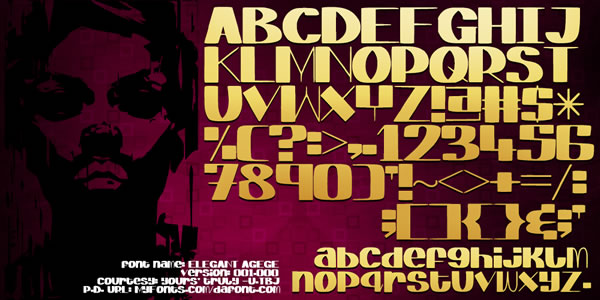
Elegant Agege Font
About Elegant Agege Font
The Elegant Agege font is a highly versatile typeface that can be utilized across a wide range of design purposes. Its elegant and sophisticated design makes it suitable for various applications, allowing designers to add a touch of class and refinement to their projects. Whether it’s for personal or professional use, this font offers a range of possibilities.
One of the key strengths of the Elegant Agege font lies in its ability to enhance the visual appeal of products. For example, when applied to mugs, the font can create visually striking designs that are both stylish and eye-catching. Its unique letterforms and graceful strokes add a level of elegance and sophistication to the merchandise.
In addition, the Elegant Agege font is an excellent choice for creating impactful headings and titles. Whether it’s for websites, magazines, or presentations, using this font for headers can instantly grab attention and convey a sense of sophistication. Its clean and refined design ensures readability while making a strong visual statement.
Furthermore, the font’s aesthetic qualities make it well-suited for logo designs and branding materials. By incorporating the Elegant Agege font into a logo, businesses and organizations can convey a sense of elegance and professionalism. The font’s timeless appeal contributes to the creation of a strong and memorable visual identity.
When it comes to invitations and stationery, the Elegant Agege font adds a touch of class to designs. Whether it’s wedding invitations, event flyers, or greeting cards, this font’s graceful letterforms bring a sense of elegance to any piece of stationery. Its versatility allows it to adapt to various design themes and styles.
For editorial purposes, such as newspapers and magazine layouts, the Elegant Agege font offers both legibility and a stylish aesthetic. Its clean lines and sophisticated look make it suitable for headlines, covers, and editorial content. The font ensures that the text is easy to read while maintaining a sense of refinement.
Overall, the Elegant Agege font is a valuable asset for designers working on a wide range of projects. Its versatility and elegance make it suitable for mugs, headings, logos, invitations, newspapers, and much more. By incorporating this font into their designs, designers can elevate their work and create visually stunning and sophisticated pieces.